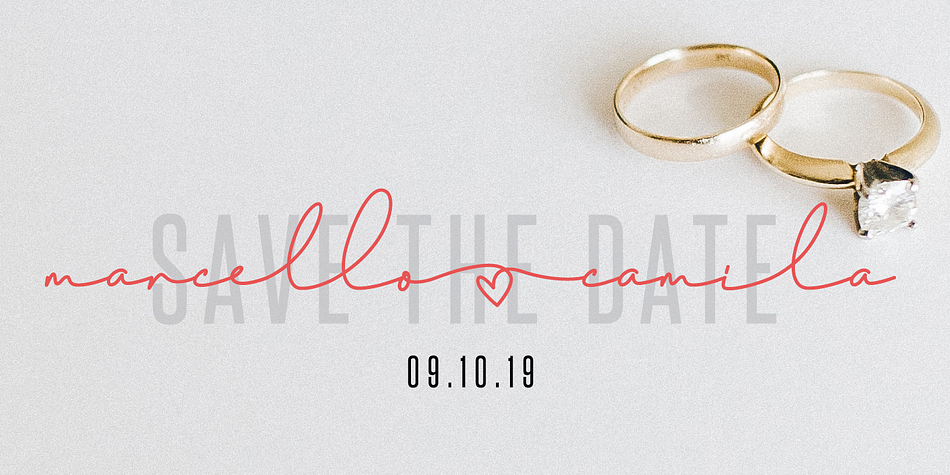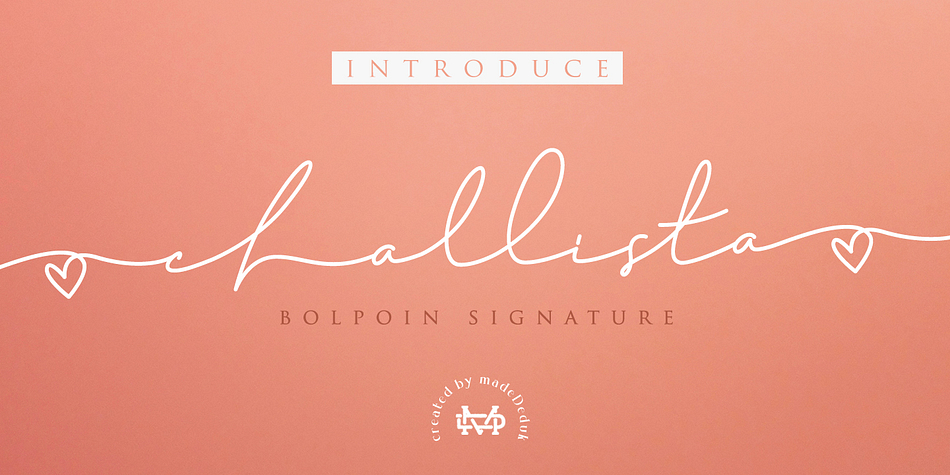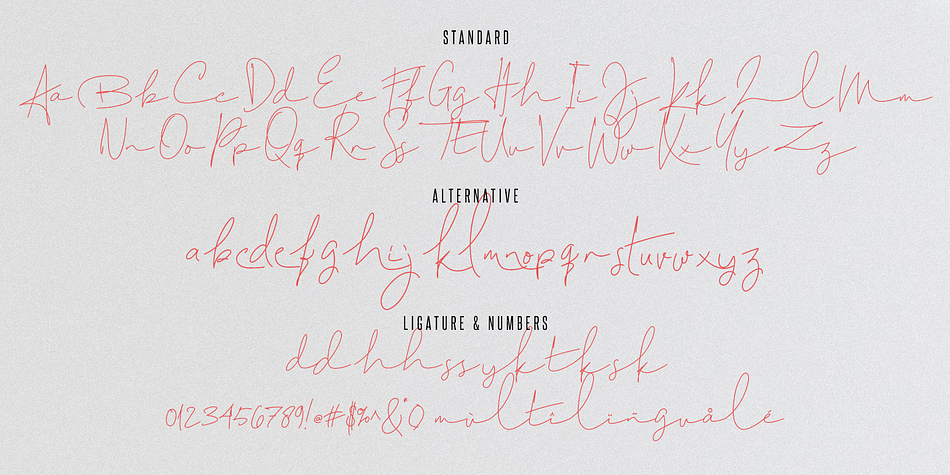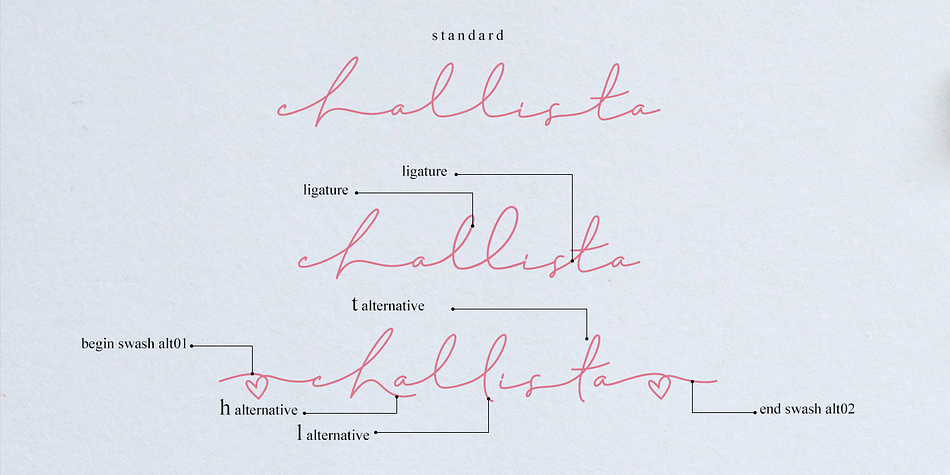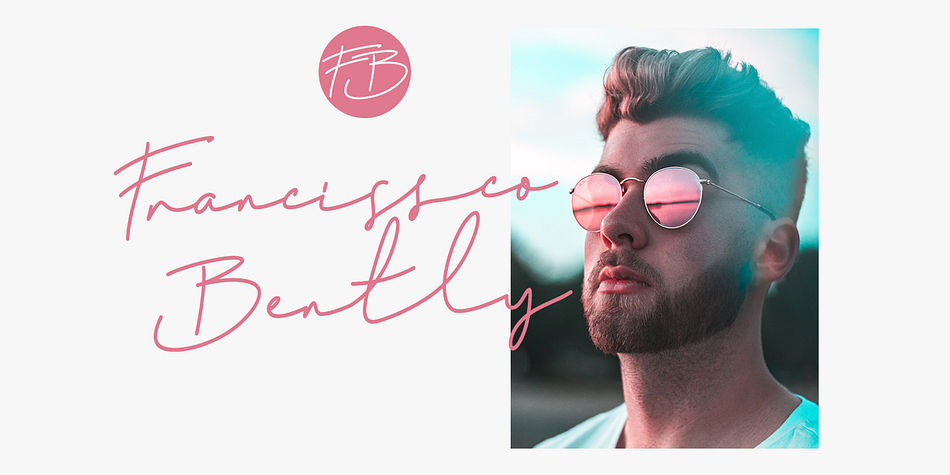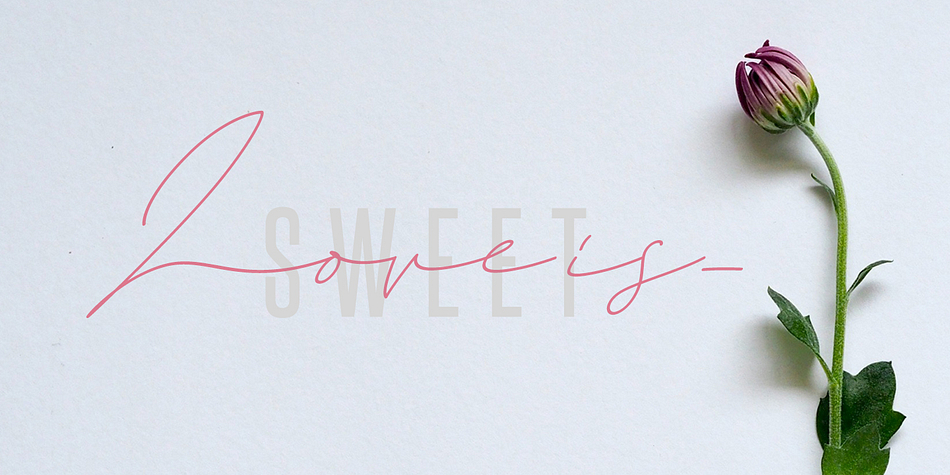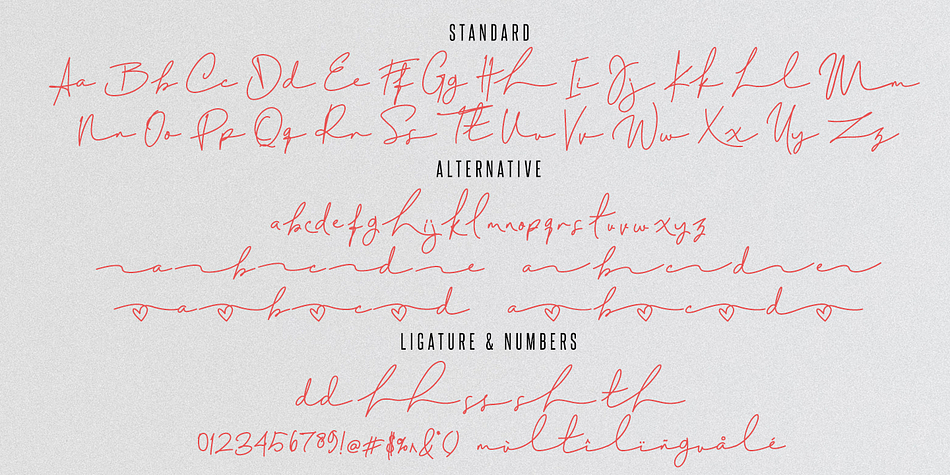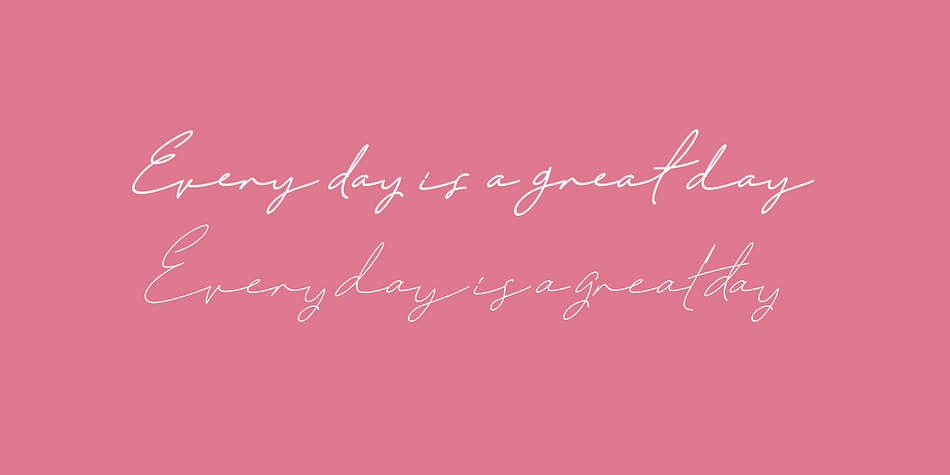
Designed by Suandana Ipandemade, Challista Signature is a hand drawn and script font family. This typeface has four styles and was published by madeDeduk.
Challista is ballpoint handmade signature font VOL.4. Challista Signature includes more than 30 ligatures to make everything look natural handmade signature. This font perfect for poster design, book covers, merchandise, fashion campaigns, newsletters, branding, advertising, magazines, greeting cards, album covers, and quote designs and more.